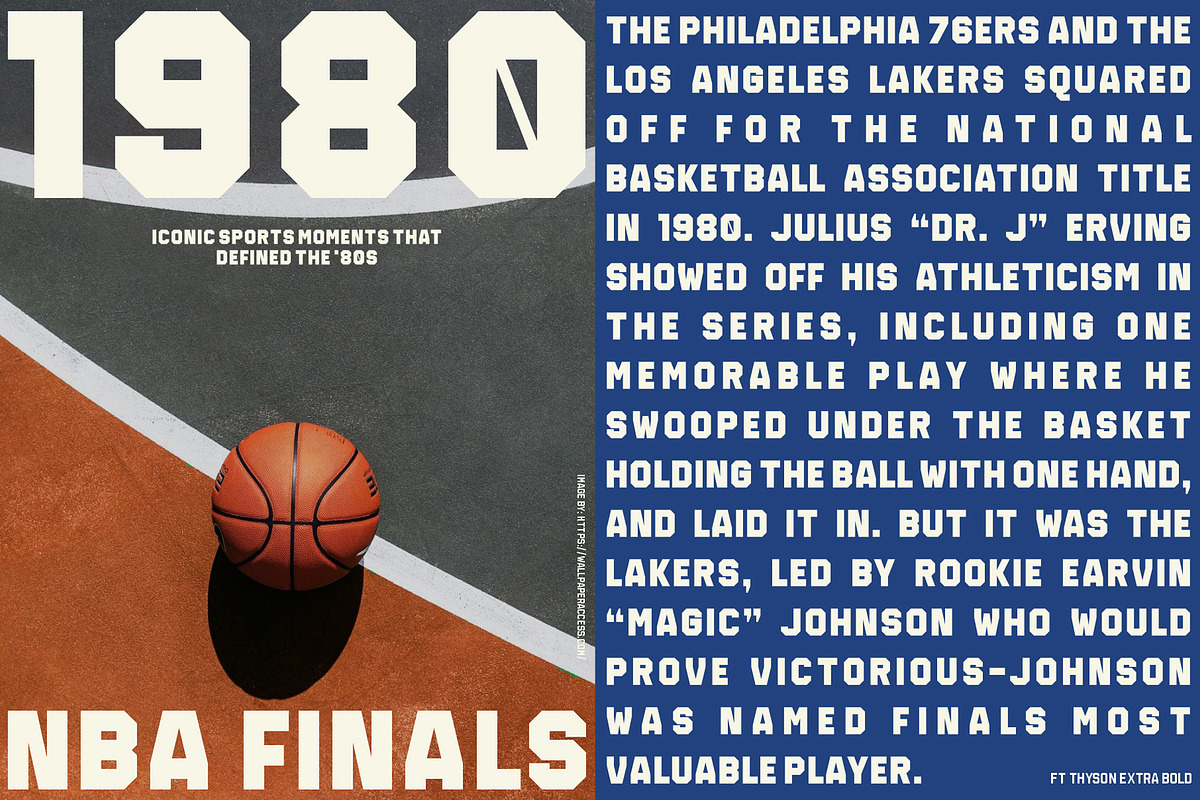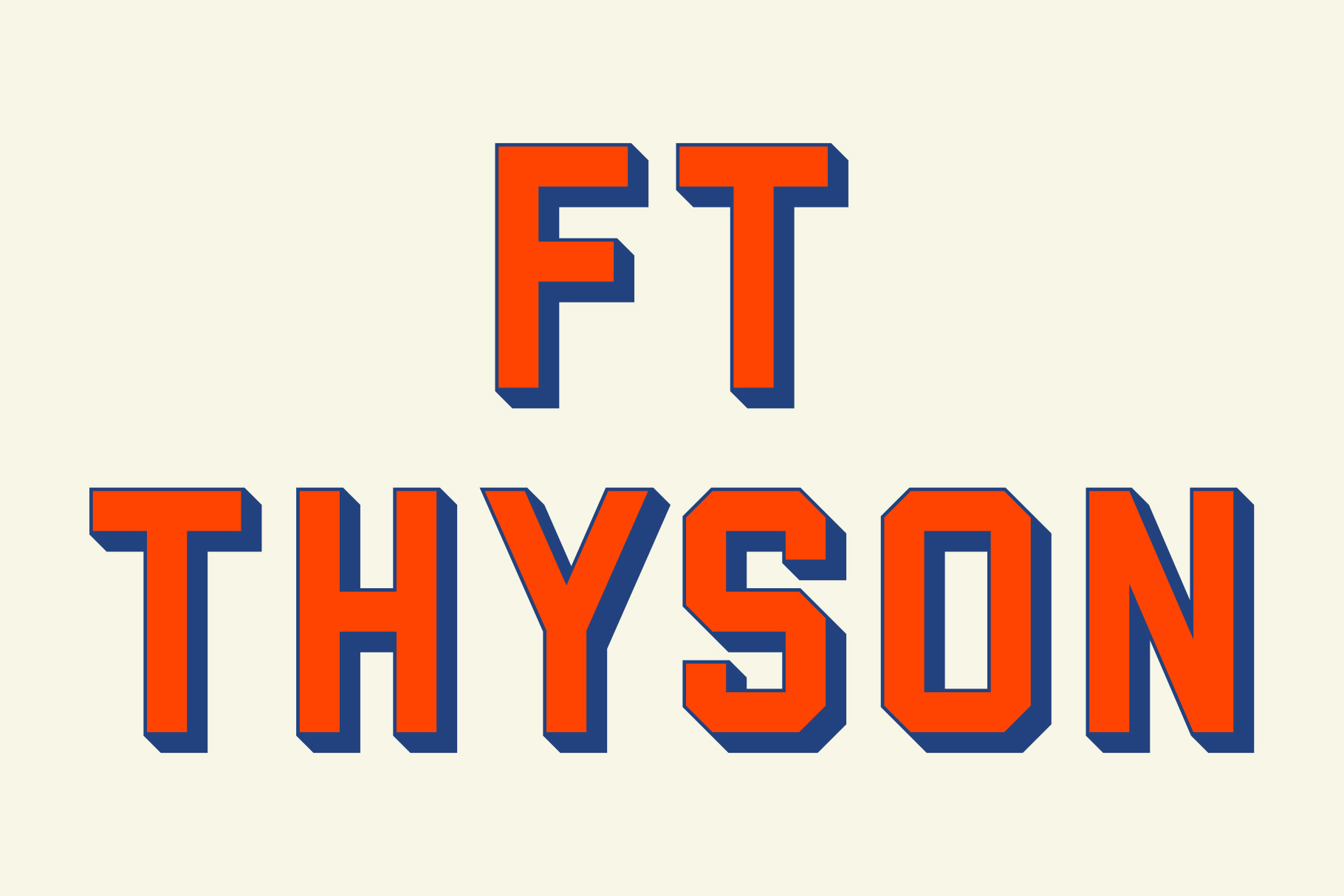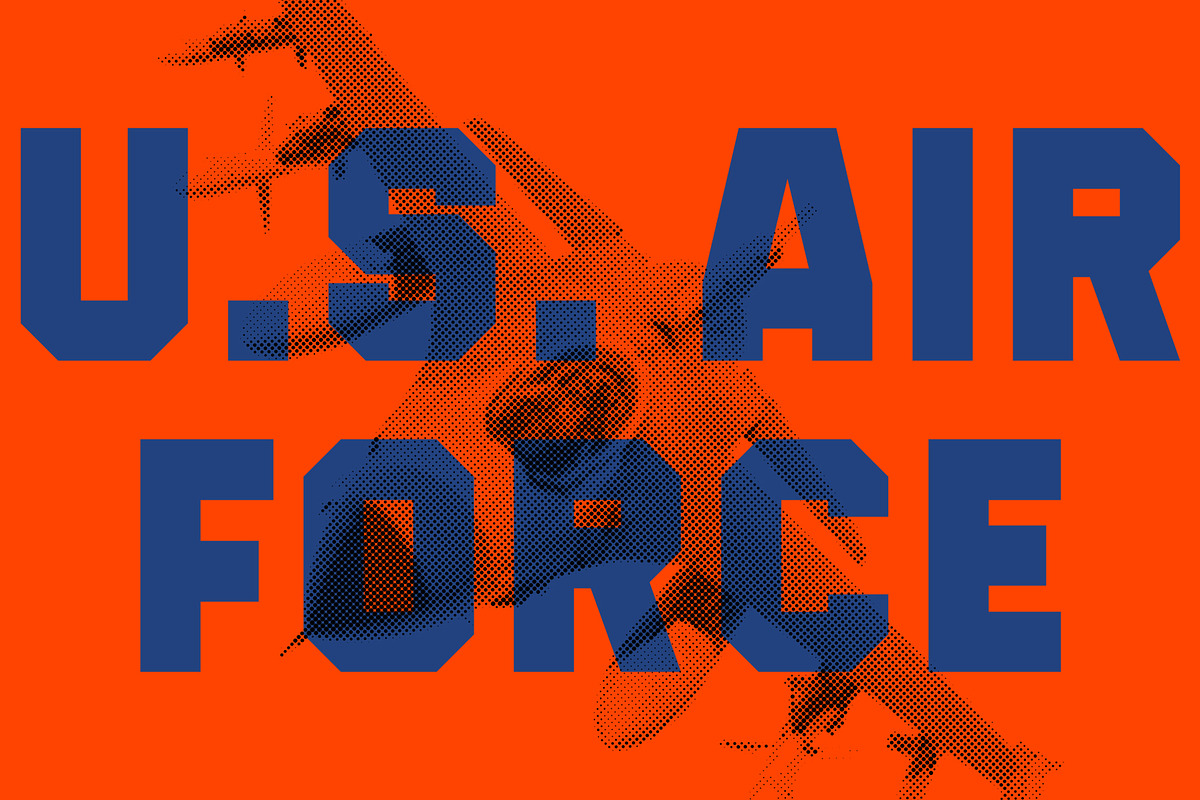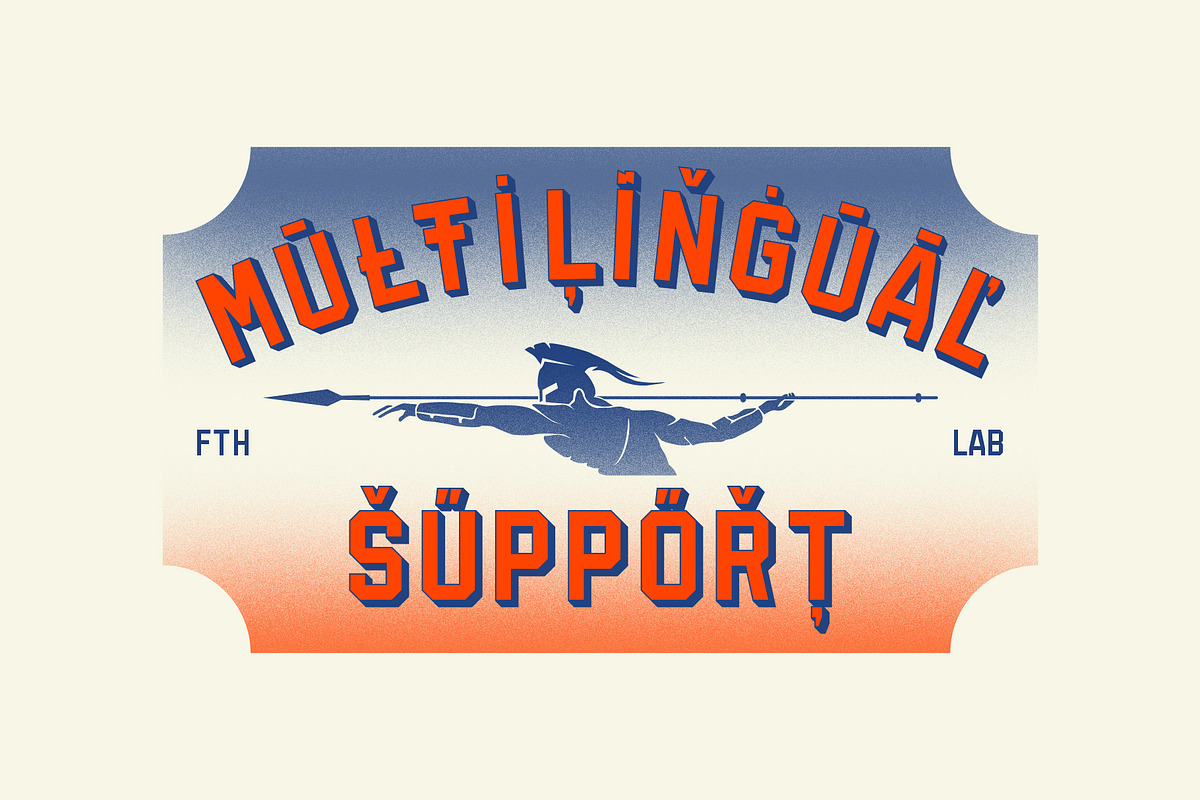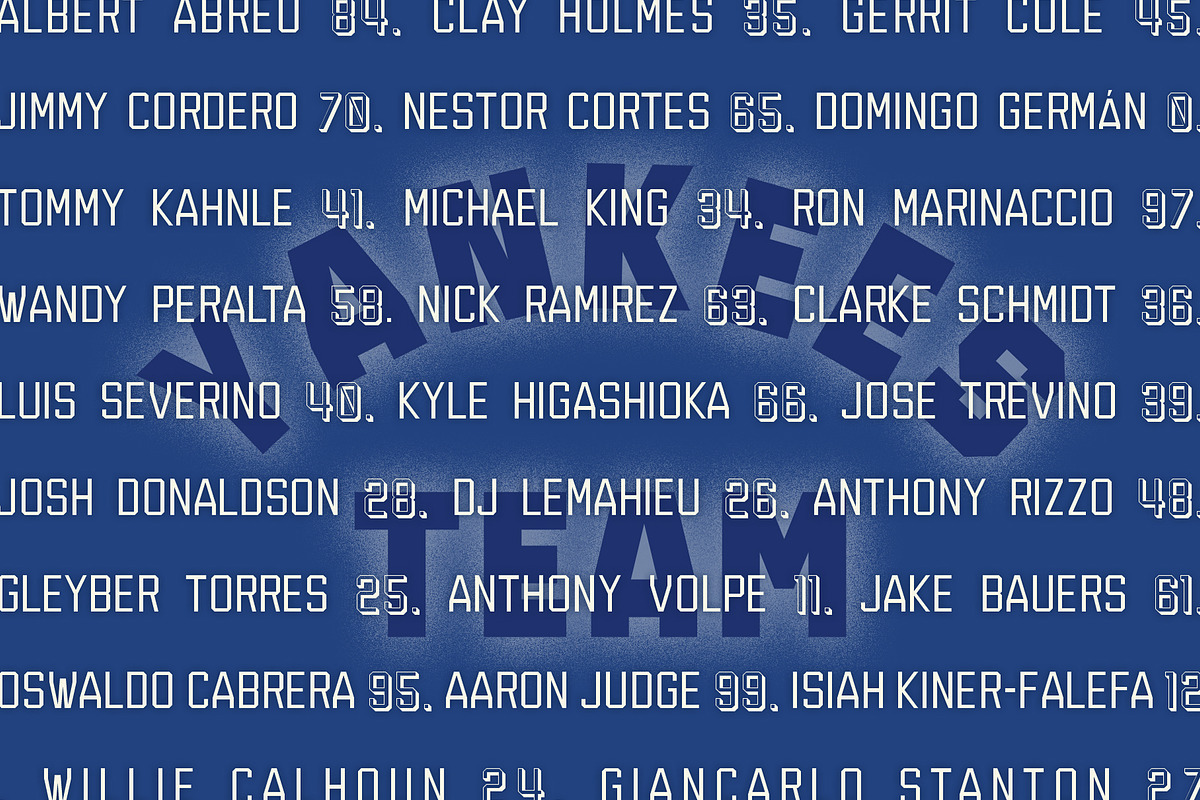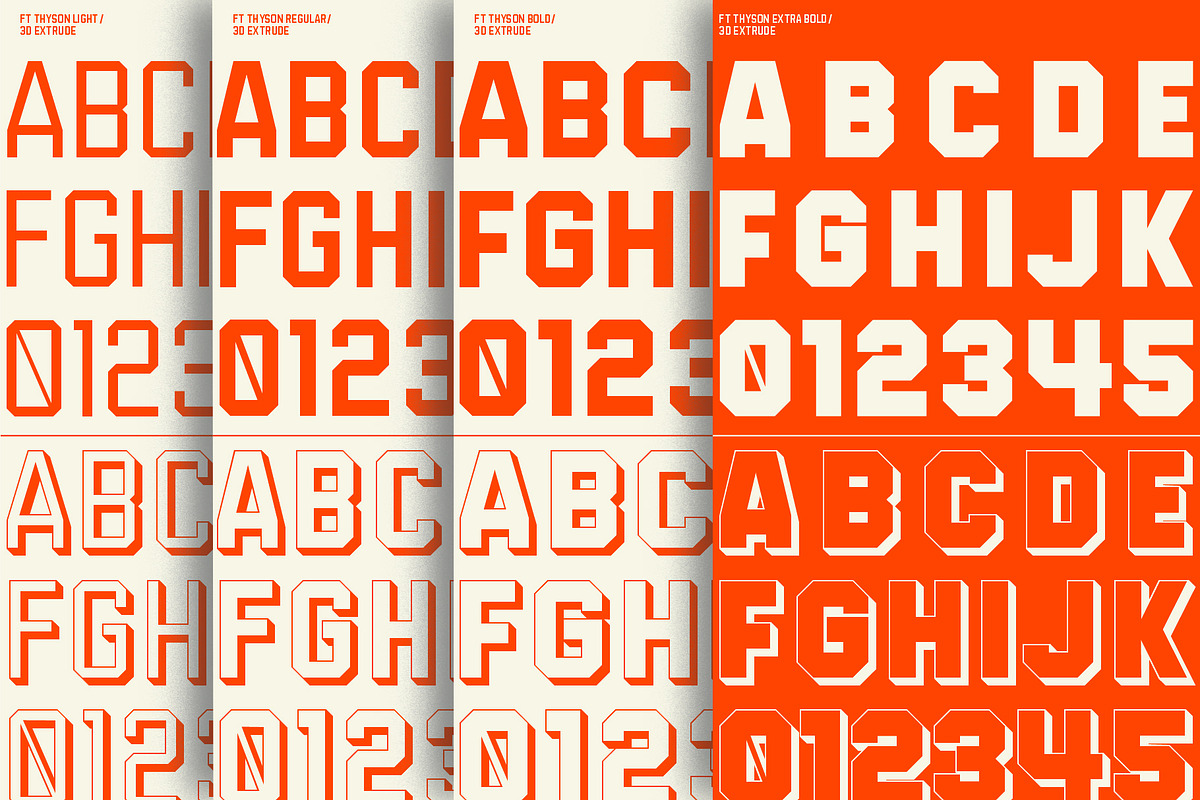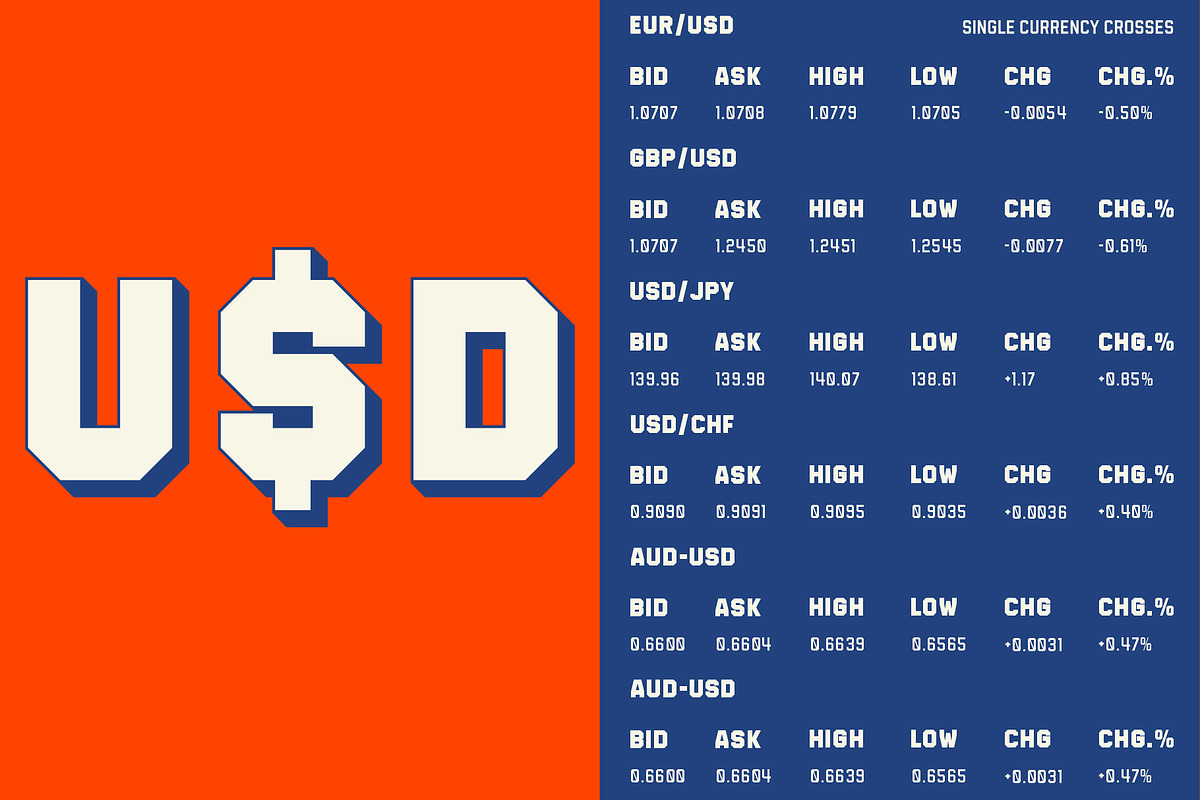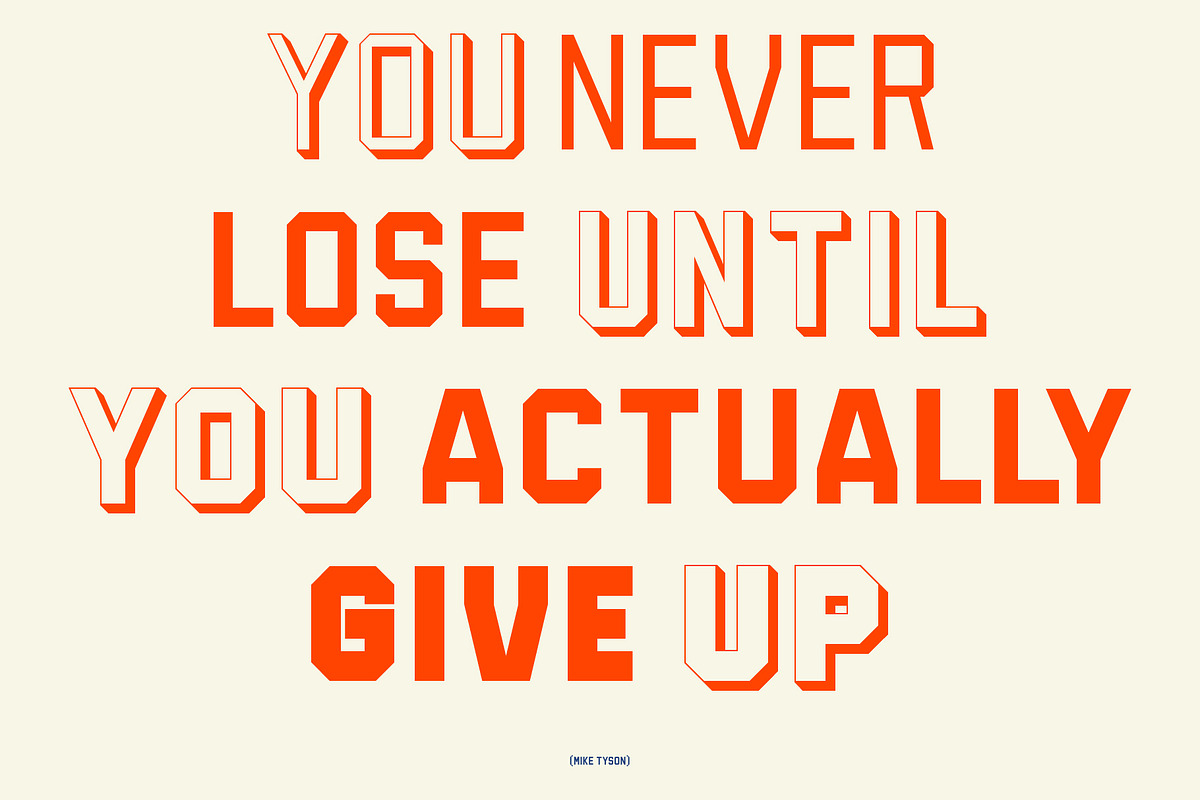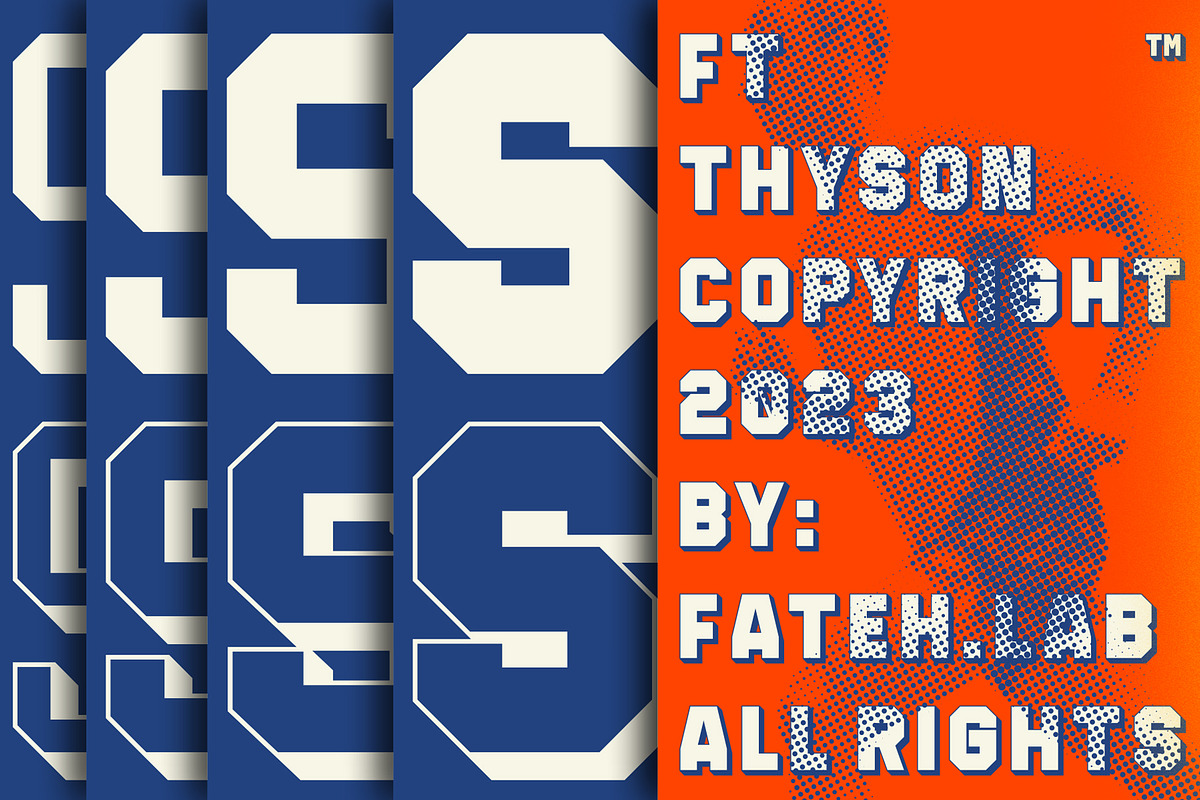
FT THYSON | MODERN SPORT FONT
FT Thyson is a powerful and elegant display typeface. can be used to present your ideas in sports/fitness or editorials, Its weight is superior in posters, social media, headlines, titles, large format print - and wherever you want to be noticed.